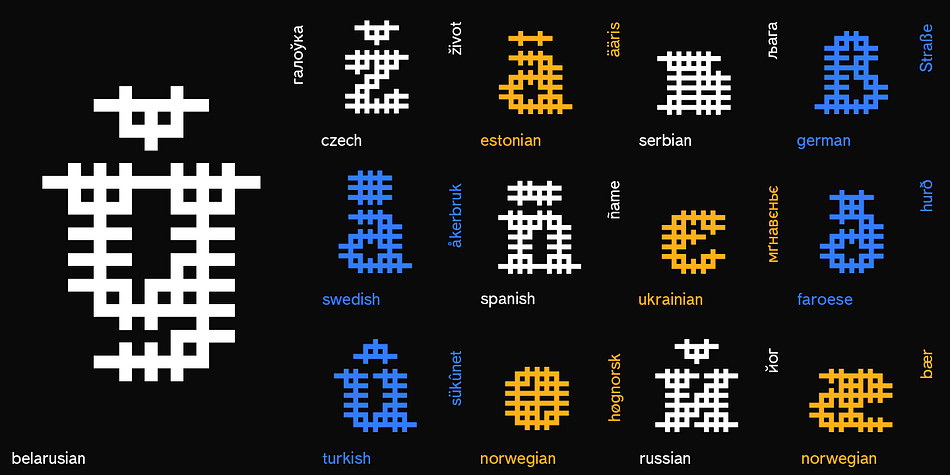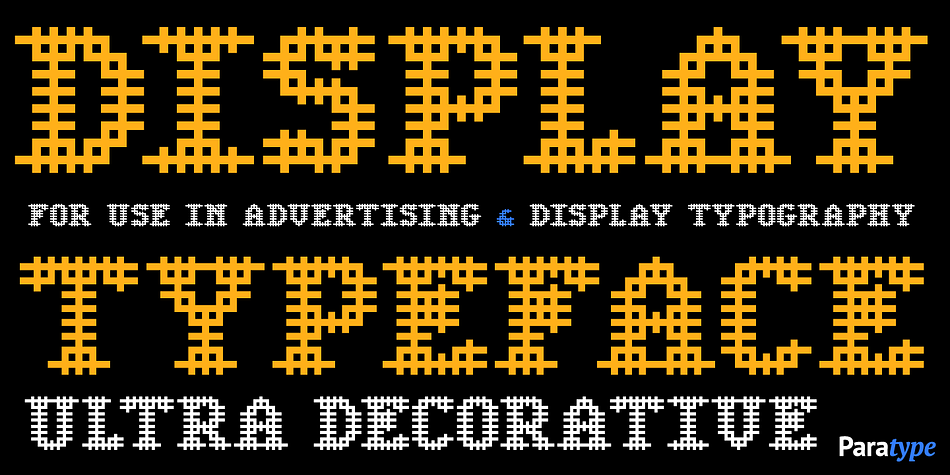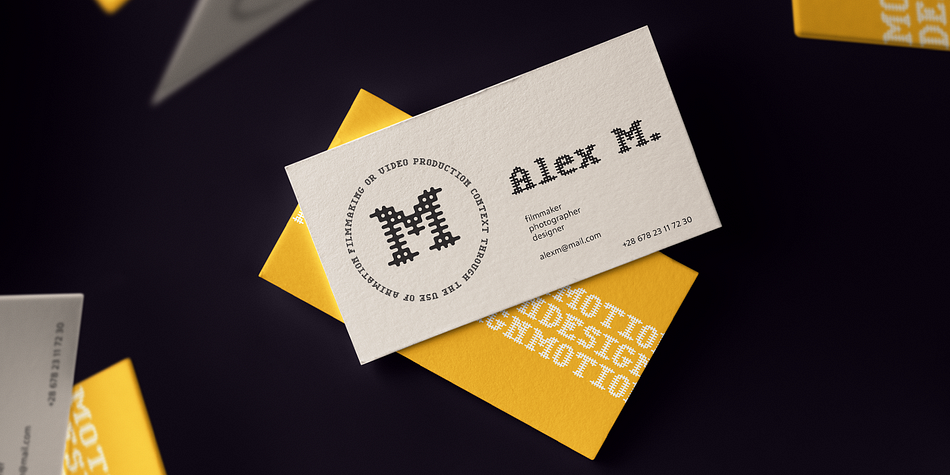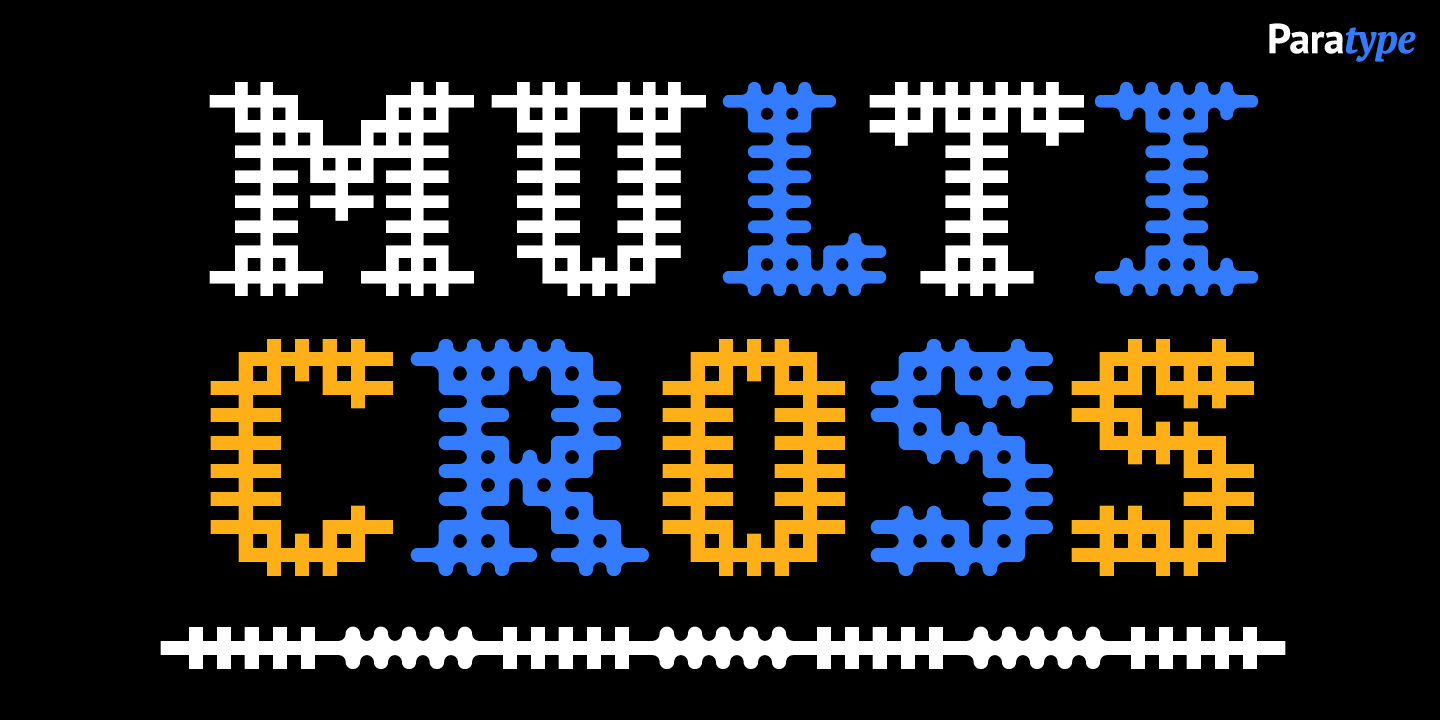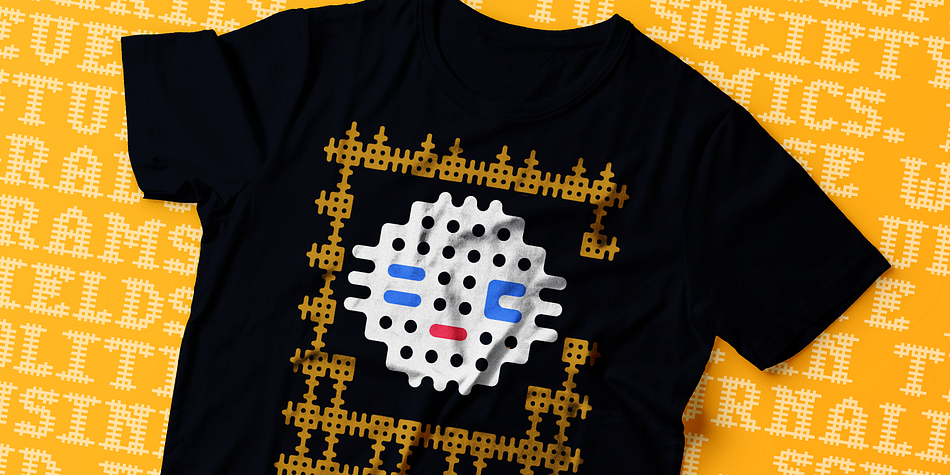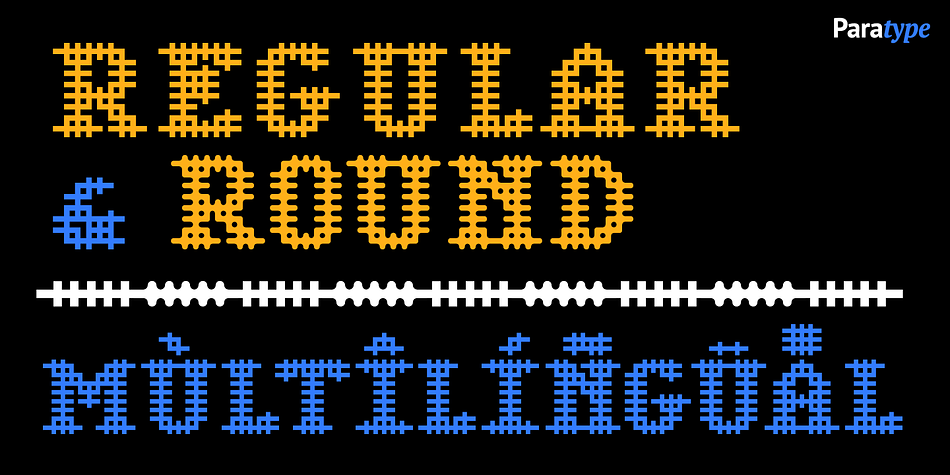
Multicross is a display serif font family. This typeface has two styles and was published by ParaType.
Multicross font was designed by Dmitry Greshnev in 2003-2004 and is licensed by ParaType. Mesh creates the basic structure for this font. Multicross have Regular and Rounded styles. For use in advertising and display typography. Can be used as a screen font with anti-aliasing function switched off.